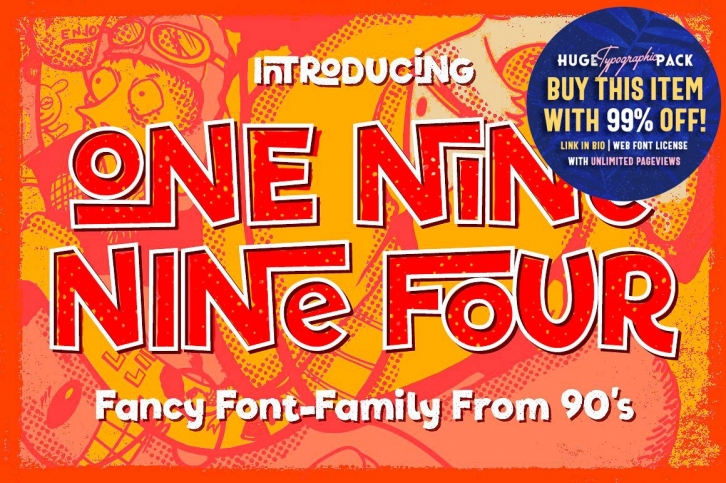
ONE NINE NINE FOUR
ONE NINE NINE FOUR is very cute fancy font family inspired by posters and covers of west coast punk-rock stage bands and early skateboard graphics. Inspired by all of this subculture.
Three styles, combine them for cool result, use halftone to get vintage cheap print effect as fanzine style. More than 100 ligature pairs - get the customisation for your type design. (Use uppercase to get them, or combine lower/upper to get second variant of some pairs of ligatures) Multi language.